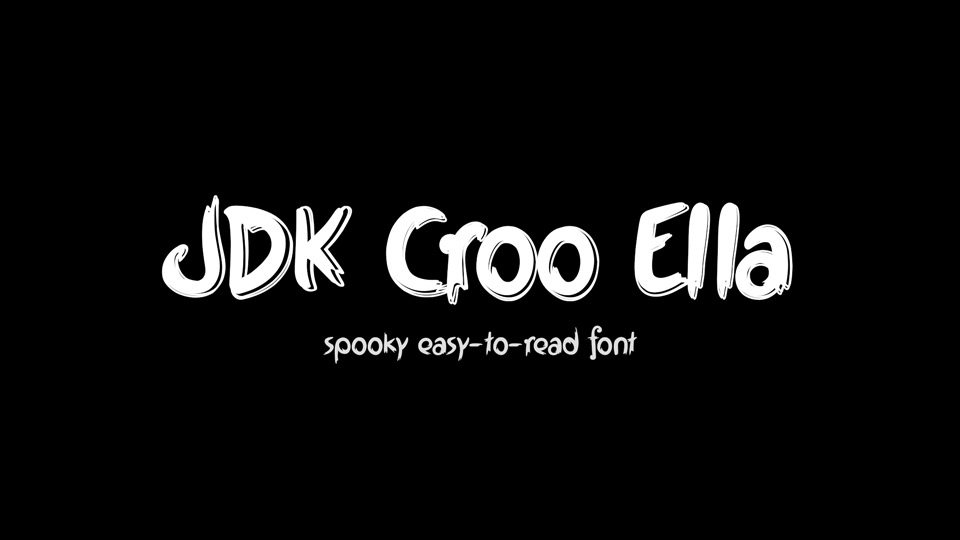
Download JDK Croo Ella font, a spooky easy-to-read typeface, suitable as a not-so-scary monster font, for example, as the speech of orcs, goblins, giants, etc.